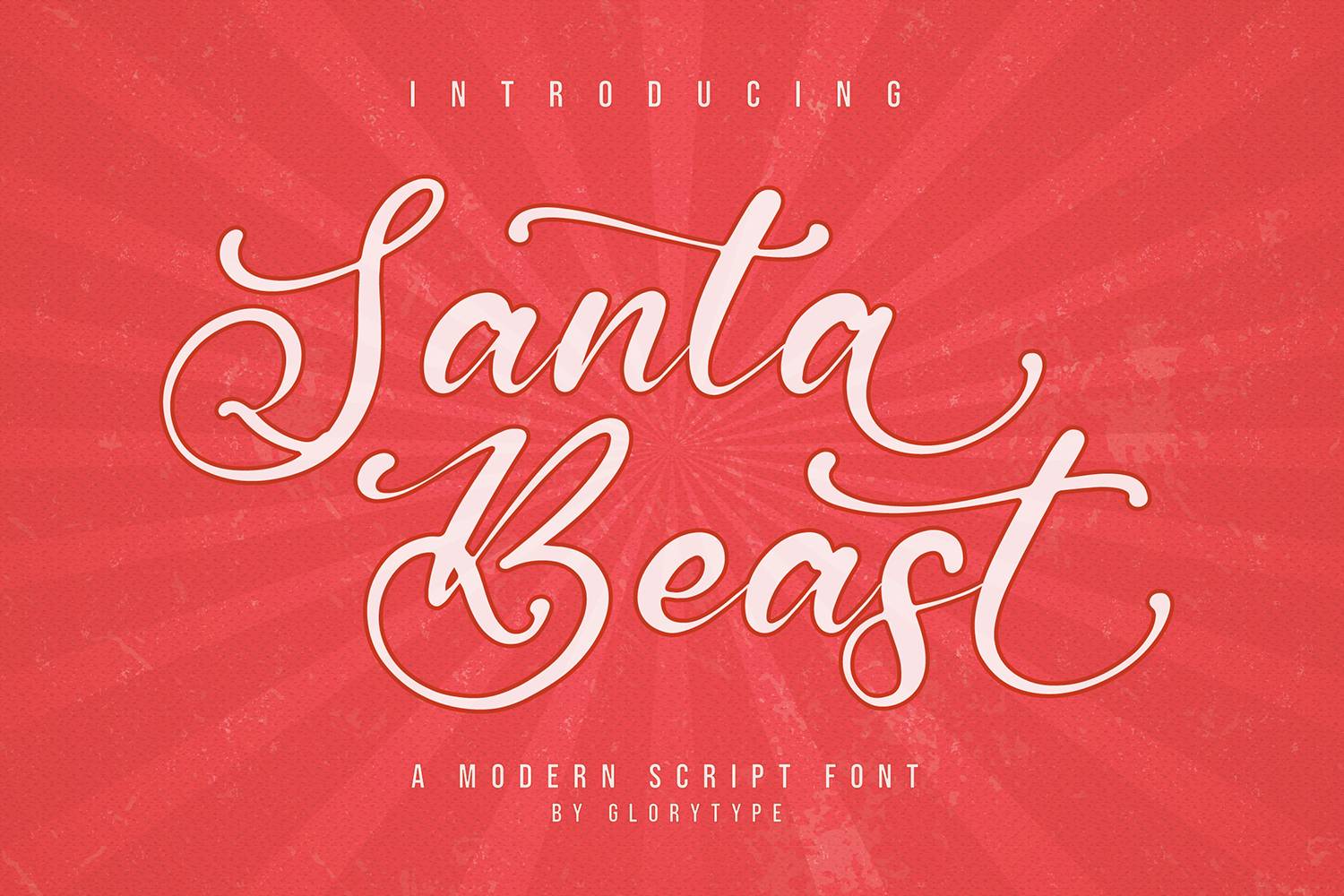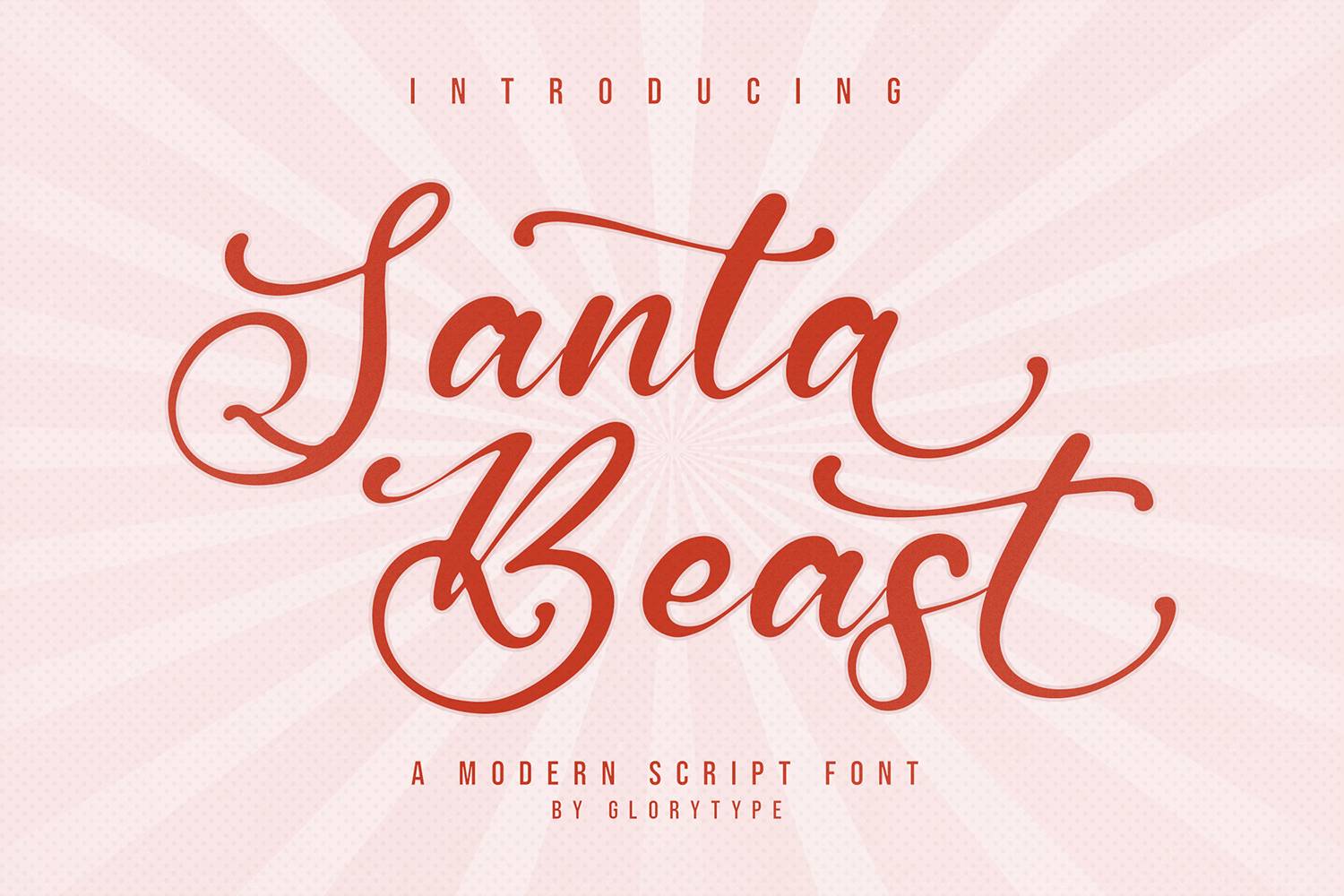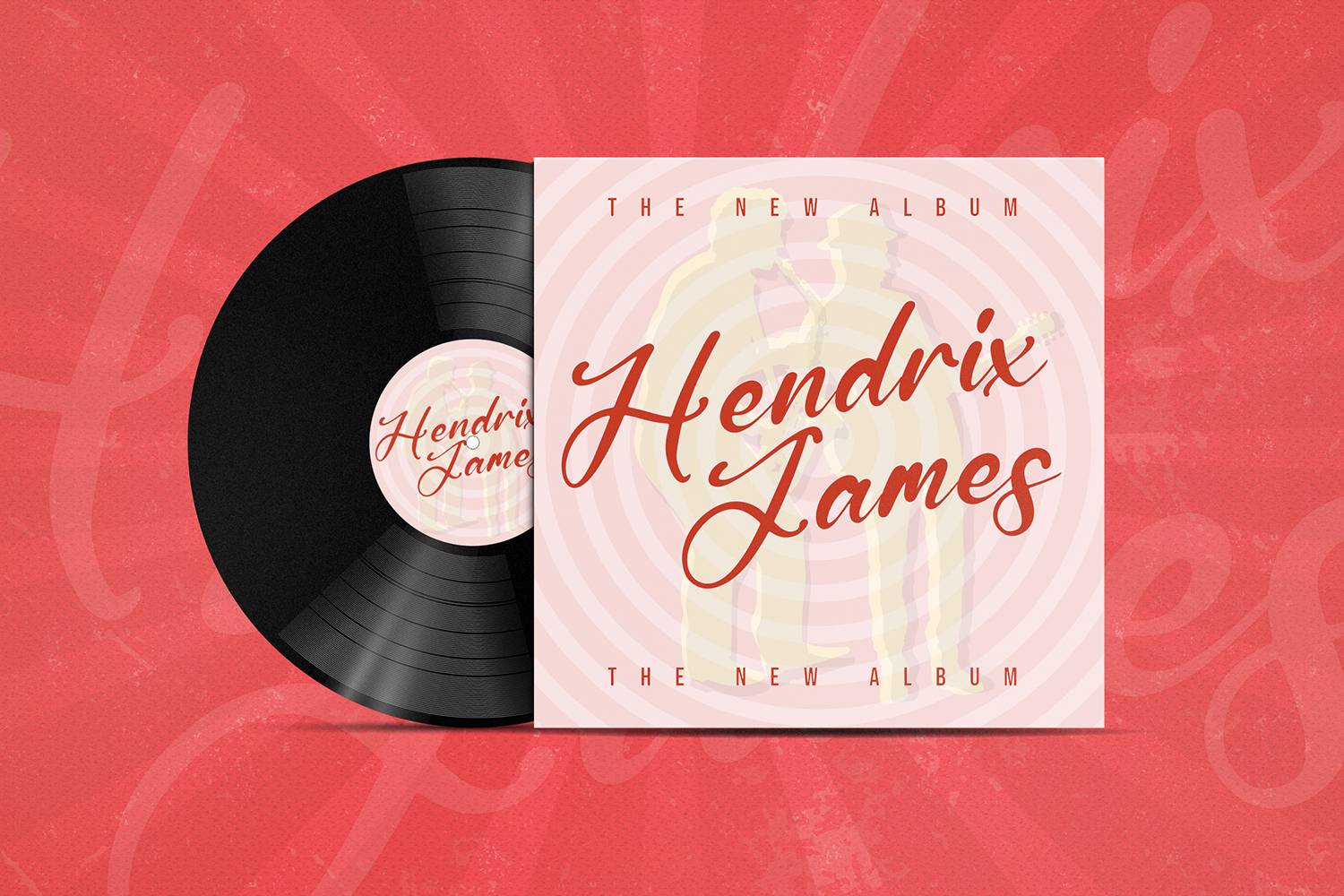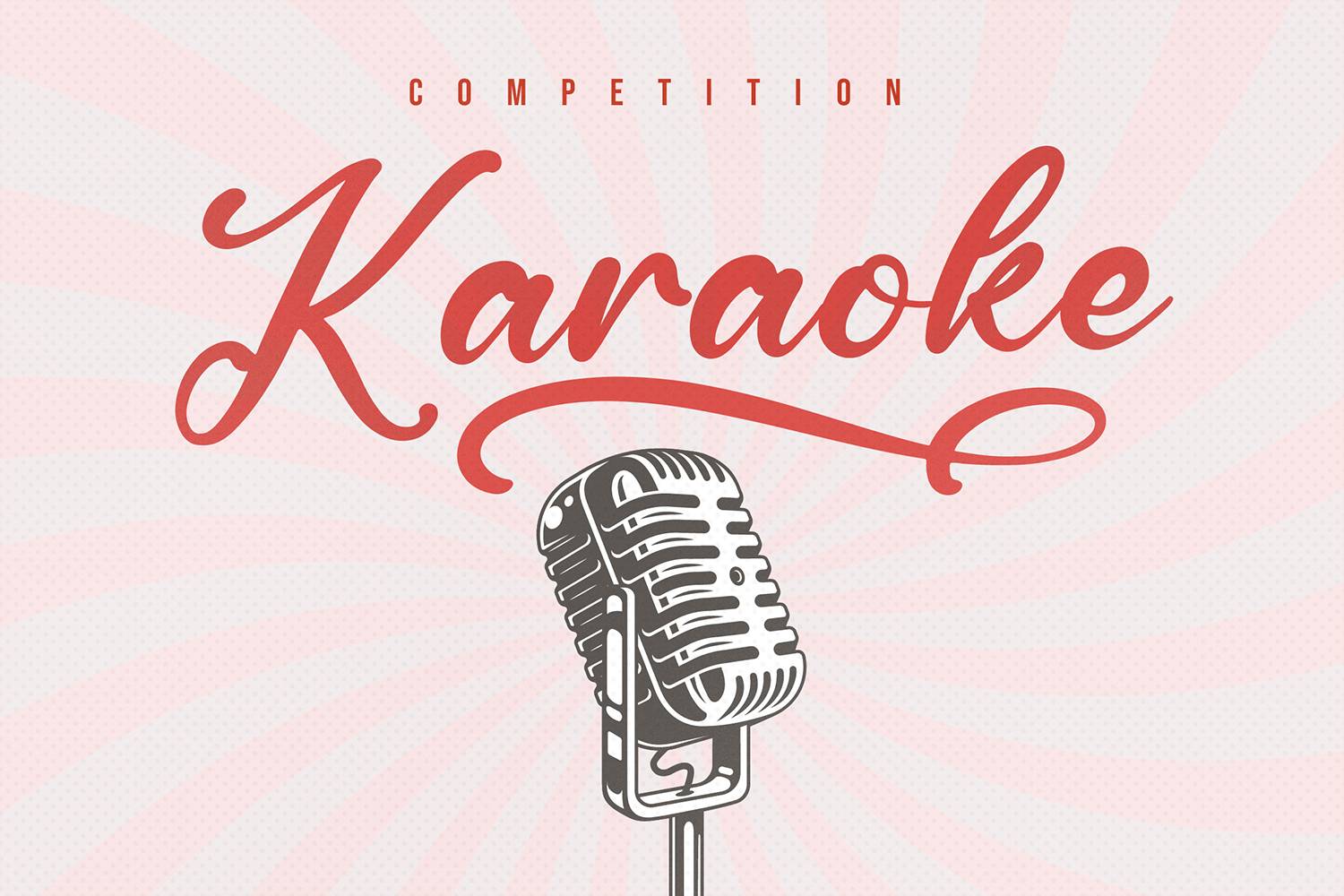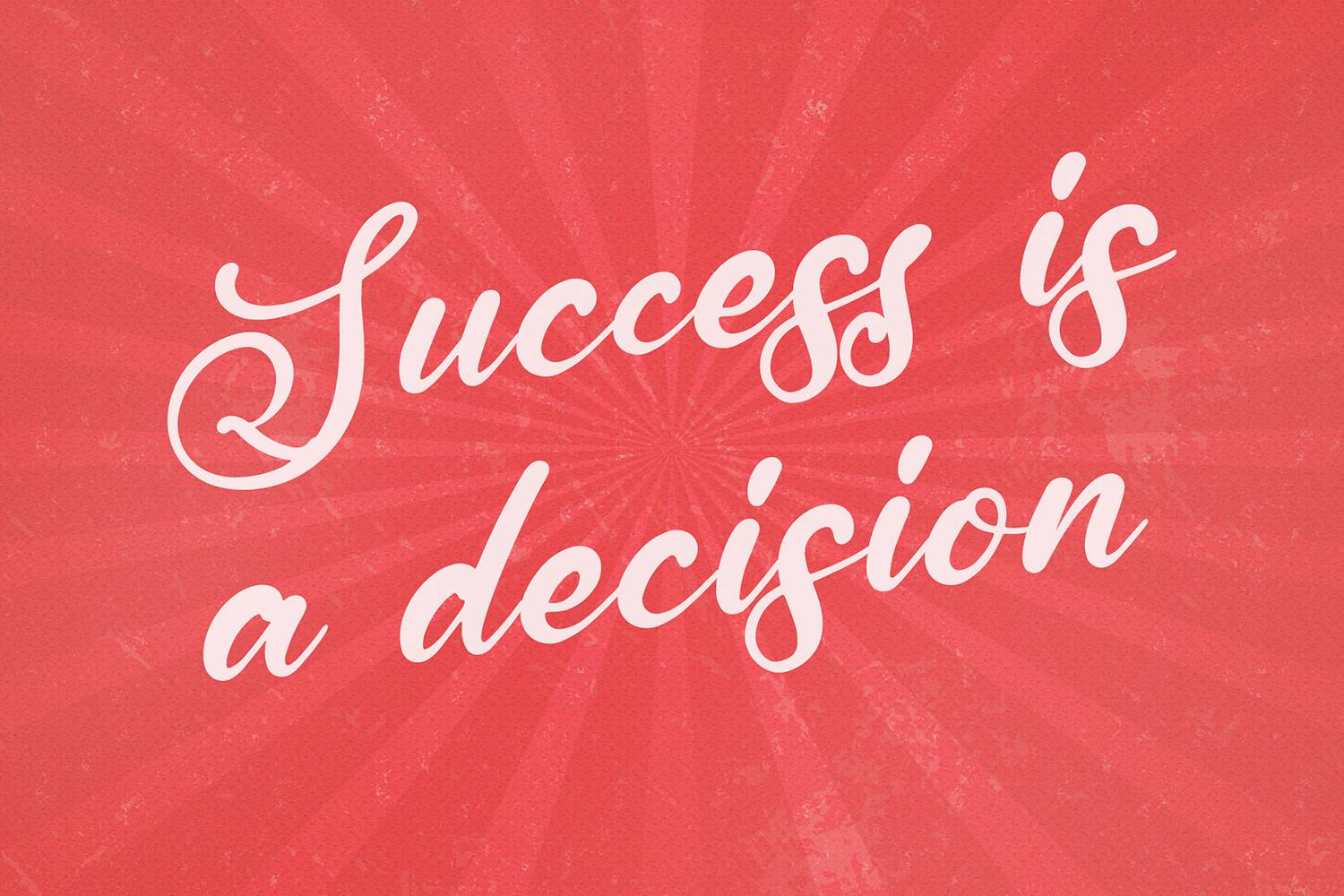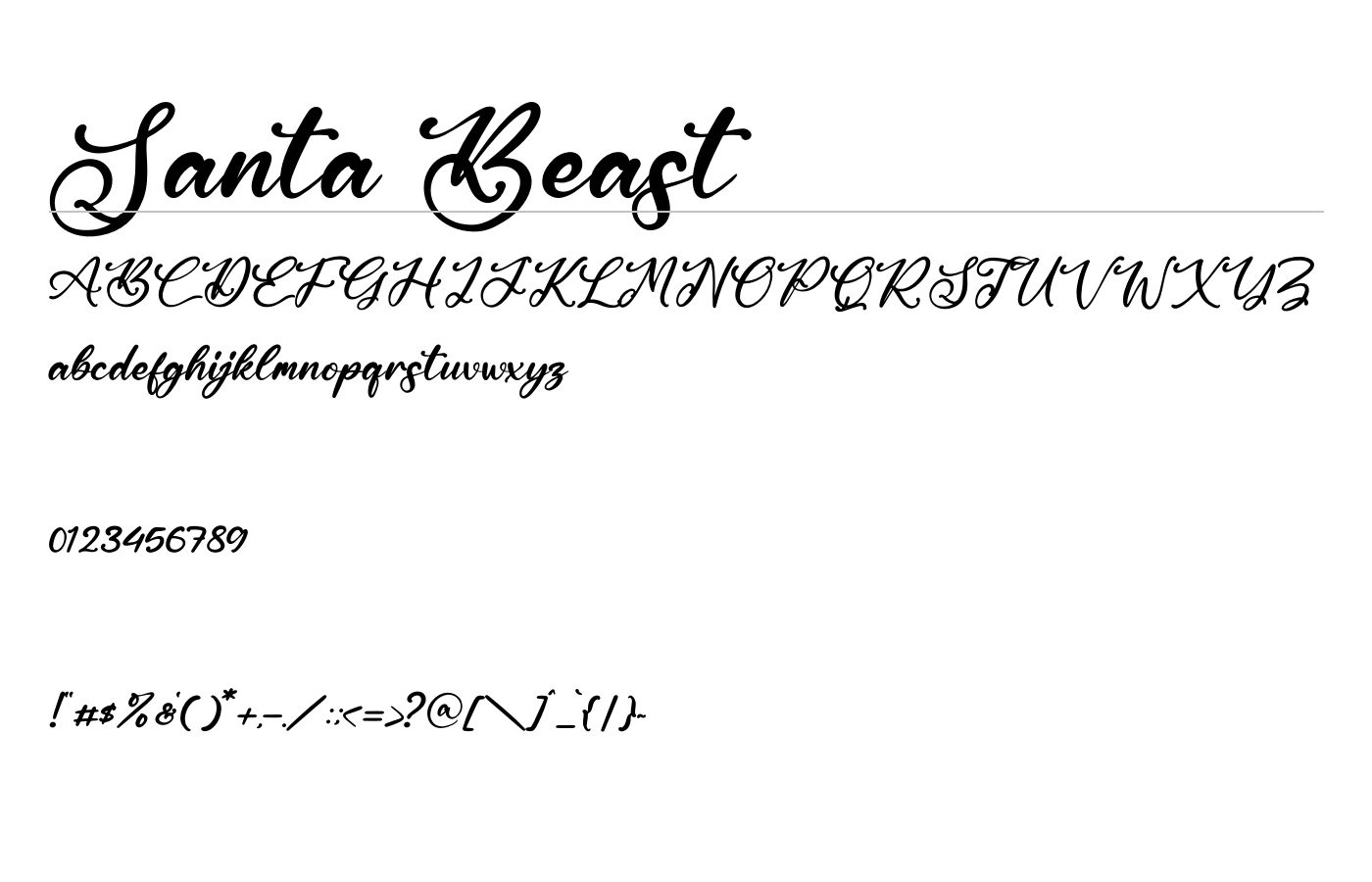
Santa Beast is an elegant script font characterized by its fluid, connected strokes and dramatic flourishes, especially noticeable in its uppercase letters. With a moderate weight and smooth, calligraphic curves, it exudes a sophisticated and artistic feel, ideal for creative branding, invitations, and decorative headlines. This font works best where a touch of luxury and personal style is desired, adding a graceful and refined personality to fashion, beauty, or festive-themed projects.
Santa Beast Font
About Santa Beast Font